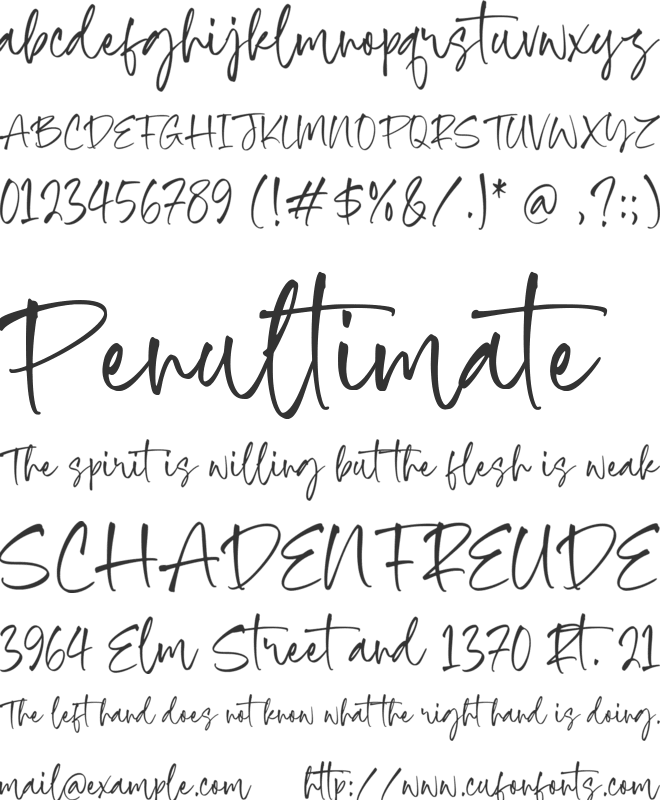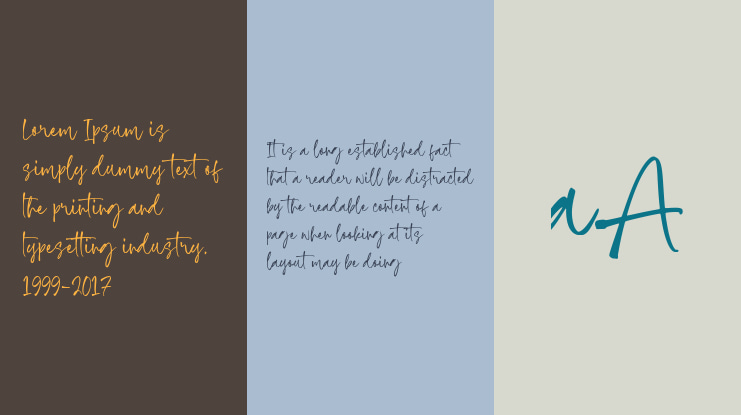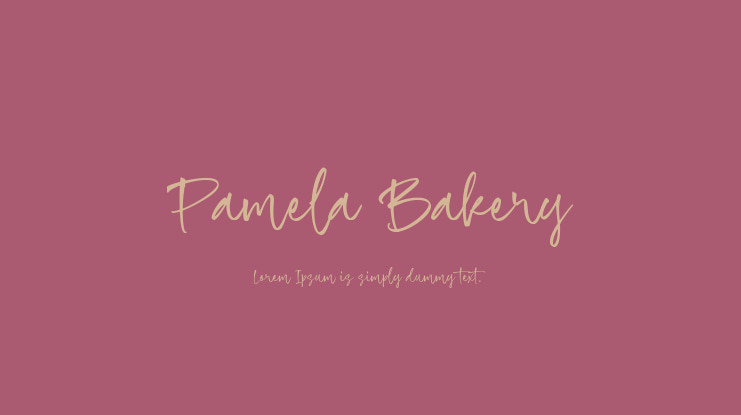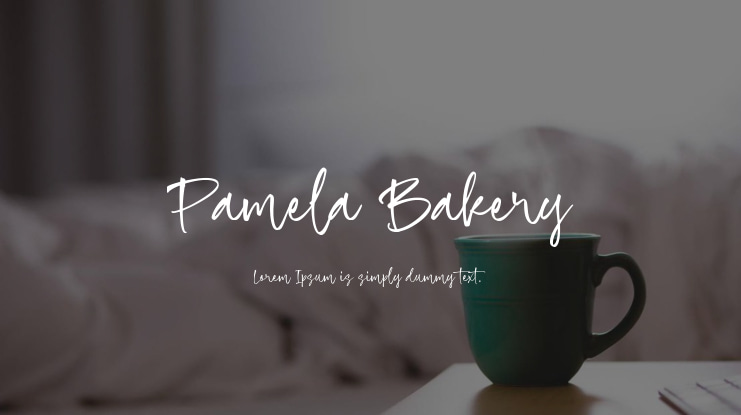
Pamela Bakery Font
Introducing Pamela Bakery, a stylish handwriting script font crafted by Timurtype Studio. This font exhibits a charming and elegant flow, making it ideal for adding a personal touch to your designs. With its smooth curves and playful nature, Pamela Bakery is perfect for bakery branding, wedding invitations, logos, and social media graphics, infusing them with warmth and creativity.
**Font Features:** - A complete set of standard alphabet and punctuation